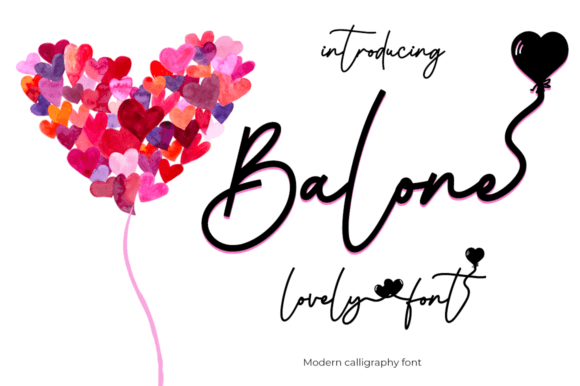
Introducing Balone Font: The Epitome of Elegance and Sophistication
In the realm of typography, few fonts manage to strike a balance between elegance and personality. Balone Font is one such exceptional typeface that seamlessly blends refinement with a personal touch, making it an ideal choice for a wide array of design projects. This stylish handwritten font is designed to elevate your branding, invitations, editorial designs, and more, with its fluid, graceful strokes and sophisticated character.
The Essence of Balone Font
Balone Font is not just a typeface; it’s an expression of style and sophistication. Its fluid strokes exude a sense of movement and elegance, while its well-crafted characters ensure readability and charm. This font is meticulously designed to bring a touch of class and refinement to any project it’s used in. Whether you’re working on a luxury brand’s logo, an elegant wedding invitation, or a high-end fashion editorial, Balone Font is sure to make a lasting impression.
Key Features of Balone Font
Fluid and Graceful Strokes
One of the standout features of Balone Font is its fluid and graceful strokes. These strokes give the font a dynamic and elegant feel, making it perfect for designs that require a touch of sophistication. The fluidity of the strokes also ensures that the text flows well, making it easy to read and understand.
Sophisticated Character
Balone Font boasts a sophisticated character that sets it apart from other typefaces. Each letter is carefully crafted to exude elegance and refinement, making it suitable for high-end designs. The sophisticated character of Balone Font ensures that your project looks polished and professional.
Versatility
Another significant advantage of Balone Font is its versatility. This font can be used across various design projects, from branding and advertising to editorial and packaging. Its adaptability makes it a valuable asset for designers who work on a wide range of projects.
Applications of Balone Font
Chic Branding
For brands looking to establish a sophisticated and elegant image, Balone Font is an excellent choice. Its refined beauty and charm make it perfect for logos, business cards, and other branding materials. With Balone Font, you can create a cohesive and luxurious brand identity that resonates with your target audience.
Elegant Invitations
Balone Font is also ideal for creating elegant invitations for special occasions such as weddings, galas, and corporate events. Its sophisticated character and fluid strokes make it perfect for formal invites that require a touch of class and refinement.
Fashionable Editorial Designs
In the world of fashion editorial design, Balone Font can be a game-changer. Its stylish and elegant appearance makes it suitable for fashion magazines, blogs, and online publications. With Balone Font, you can add a touch of sophistication and glamour to your editorial designs.
Why Choose Balone Font?
Unique and Memorable
Balone Font offers a unique and memorable design that can help your project stand out. Its elegant and sophisticated appearance ensures that your design leaves a lasting impression on your audience.
Easy to Read
Despite its elegant and fluid strokes, Balone Font is easy to read, making it suitable for both headings and body text. Its readability ensures that your message is communicated effectively to your audience.
Highly Versatile
As mentioned earlier, Balone Font is highly versatile and can be used across various design projects. Its adaptability makes it a valuable asset for designers who work on a wide range of projects.
In conclusion, Balone Font is a stylish handwritten font that blends elegance with a personal touch. Its fluid, graceful strokes and sophisticated character make it perfect for chic branding, elegant invitations, and fashionable editorial designs. With Balone Font, you can enhance your projects with refined beauty and charm, ensuring that your design stands out and leaves a lasting impression. Whether you’re a designer looking for a versatile typeface or a brand aiming to establish a sophisticated image, Balone Font is an excellent choice.
| Font Type | Handwritten |
| Font Style | Script |
| Characters | Uppercase, Lowercase, Numbers, Punctuation |
Q: Is Balone Font easy to read?
A: Yes, despite its elegant and fluid strokes, Balone Font is easy to read, making it suitable for both headings and body text.